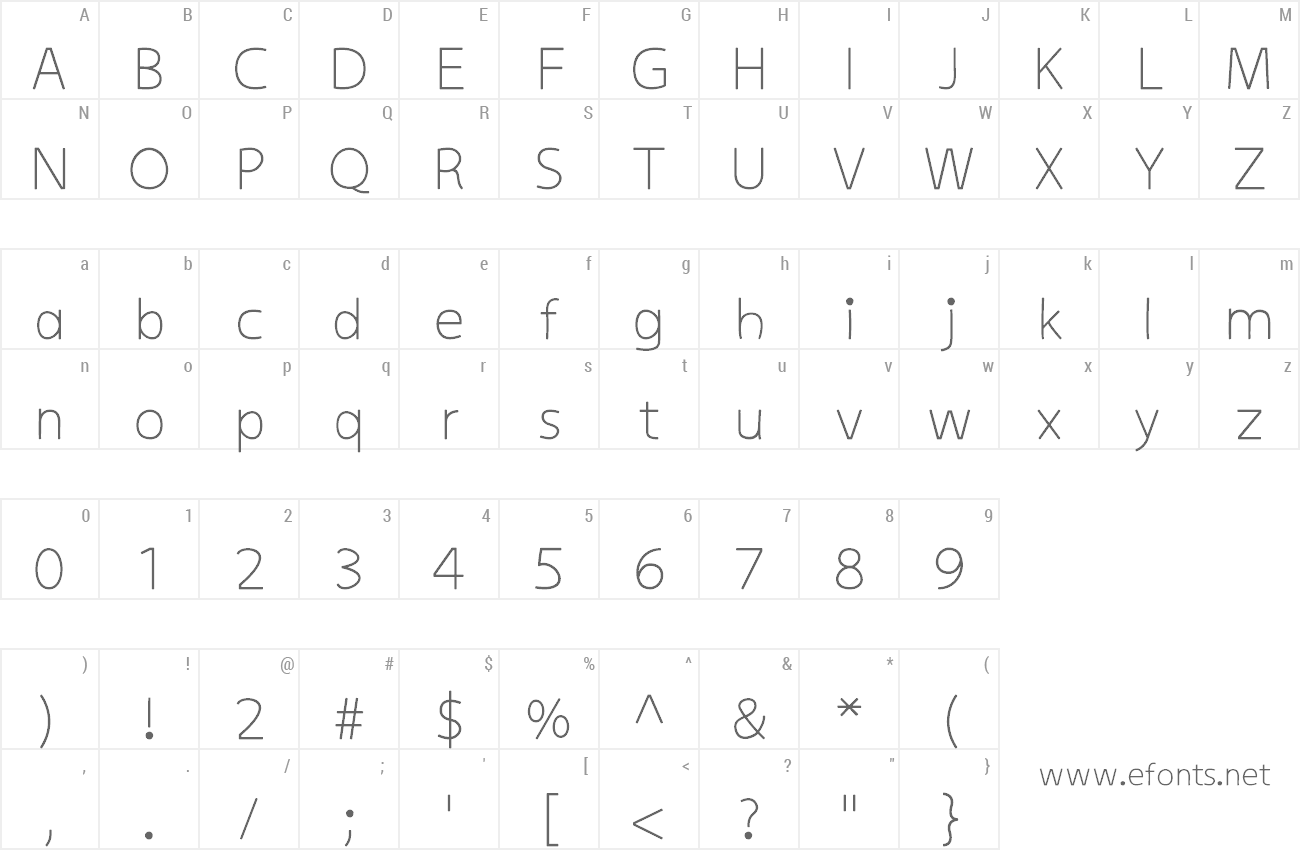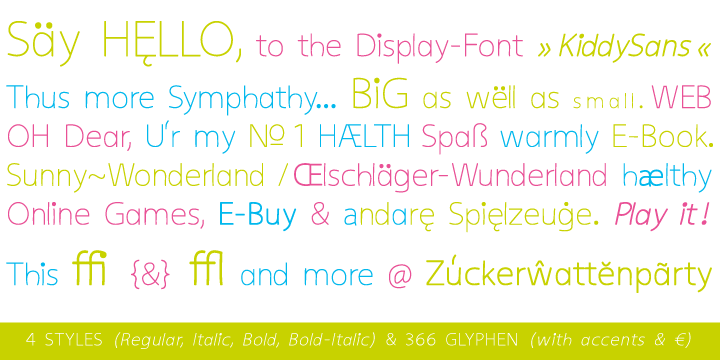
Headline Font / Display Font / Sans Serif Font "kiddy Sans" with 8 stlyes (regular, light, bold, fat + 4x italic) & 366 glyphs inkl. accents & € INFO If you want to use this font for commercial projects, please contact me: manuel.viergutz[at]gmx.de or donate an amount greater-than-or-equal EUR 24 / $ 32 (for commercial licence). I also appreciate it if you send me links /images of your (non)-commercial work featuring this font. See the font "kiddy Sans" in use http://issuu.com/-mv-/docs/kiddysans_font-documentation http://issuu.com/-mv-/docs/kiddysans_font-documentation?mode=embed&layout=http%3A%2F%2Fskin.issuu.com%2Fv%2Flight%2Flayout.xml&showFlipBtn=true&autoFlip=true&autoFlipTime=6000" target="_blank">Open publication - Free http://issuu.com" target="_blank">publishing - http://issuu.com/search?q=viergutz" target="_blank">More viergutz |